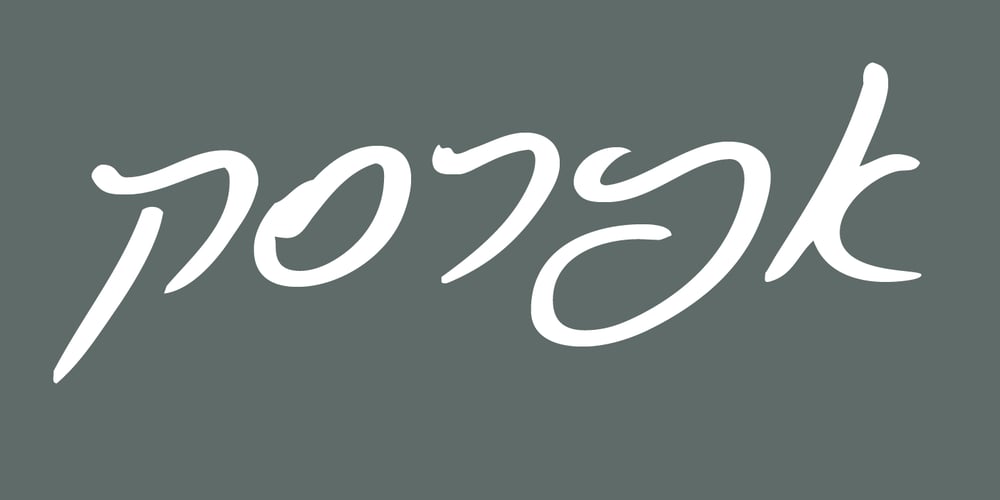
Dganit MF Font Family was designed by Dganit Israel and published by Masterfont. Dganit MF contains 1 styles and family package options. This font is a vivid choice when you want to effortlessly make your designs stand out with a remarkable clearly crafted handwriting.